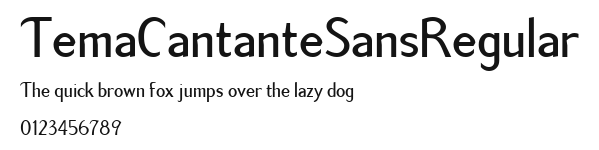
TemaCantanteSansRegular Preview
About TemaCantanteSansRegular.ttf
TemaCantanteSansRegular.ttf is a modern, elegant sans-serif font designed for ultimate readability and visual harmony. Perfect for branding, headlines, web design, and print materials.